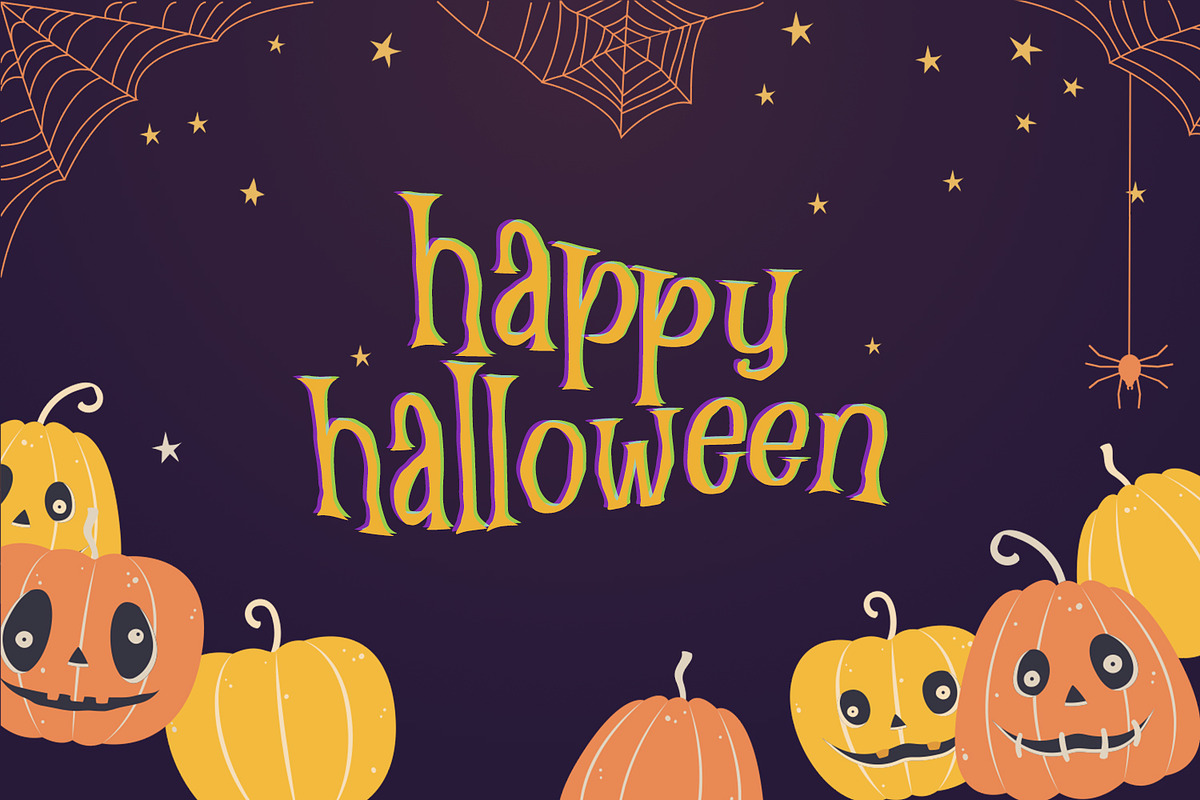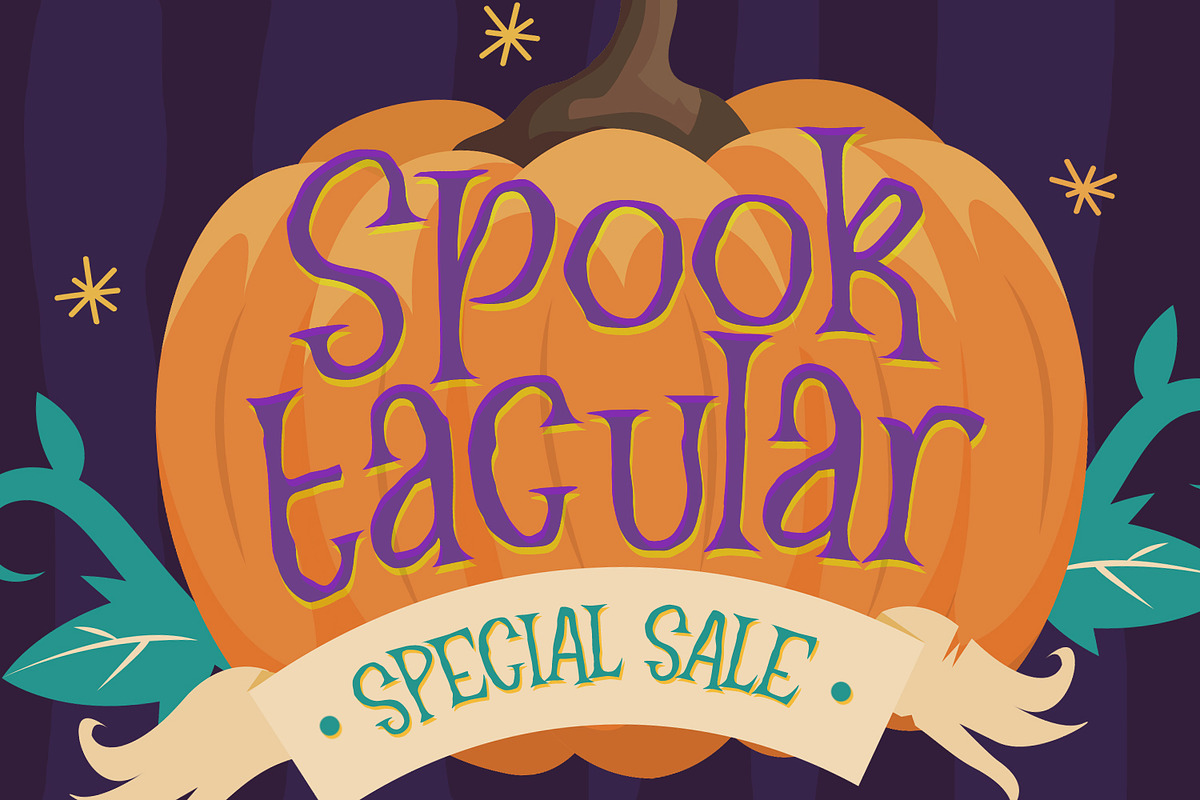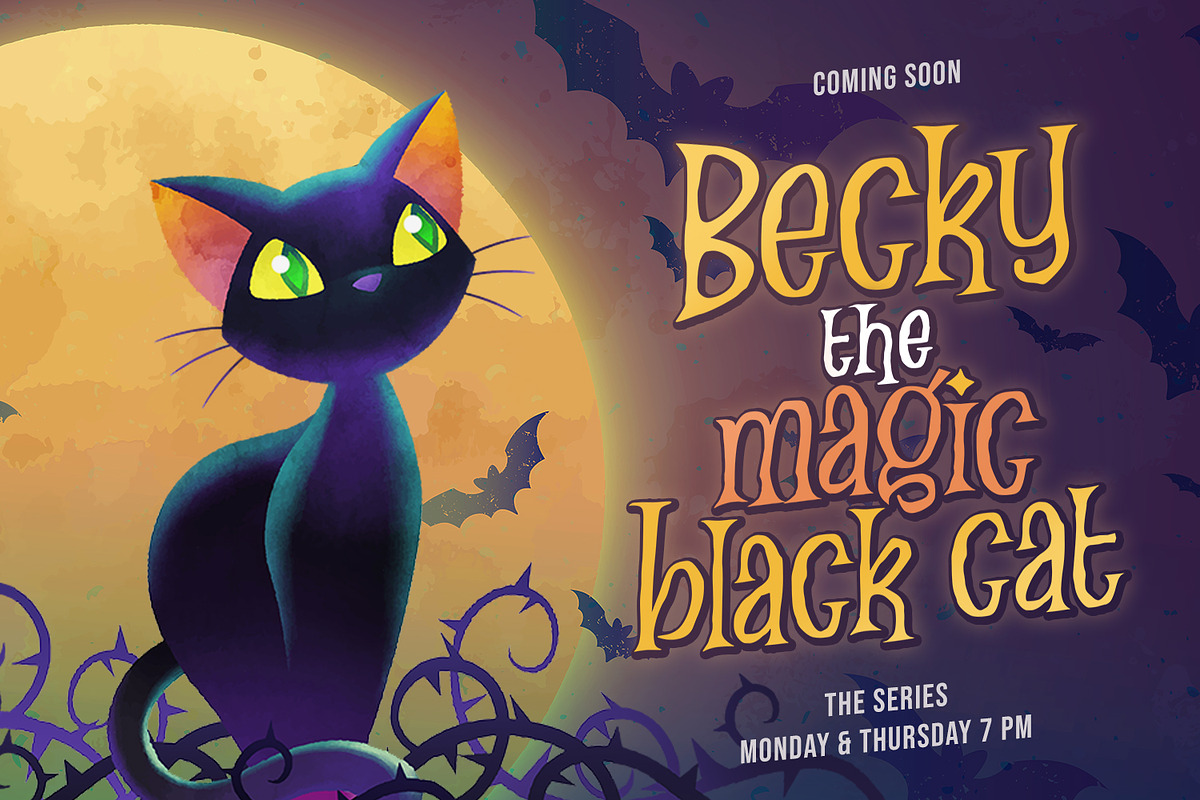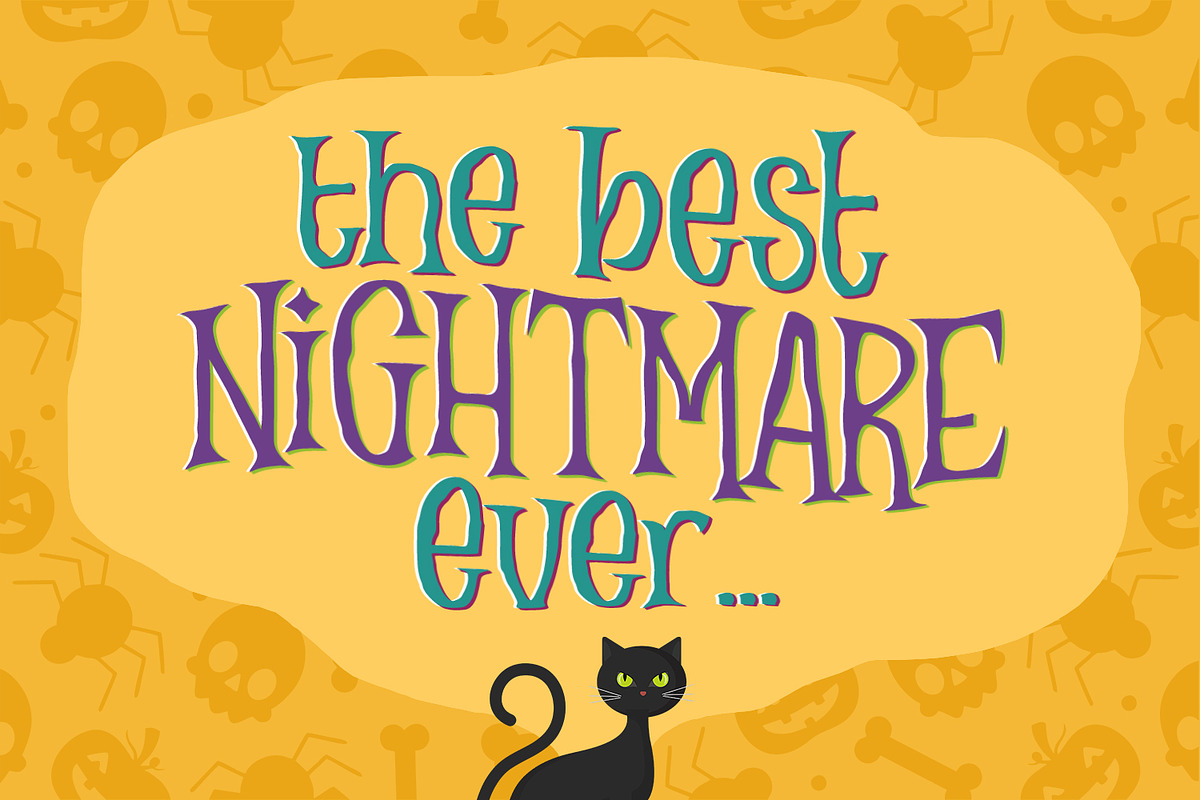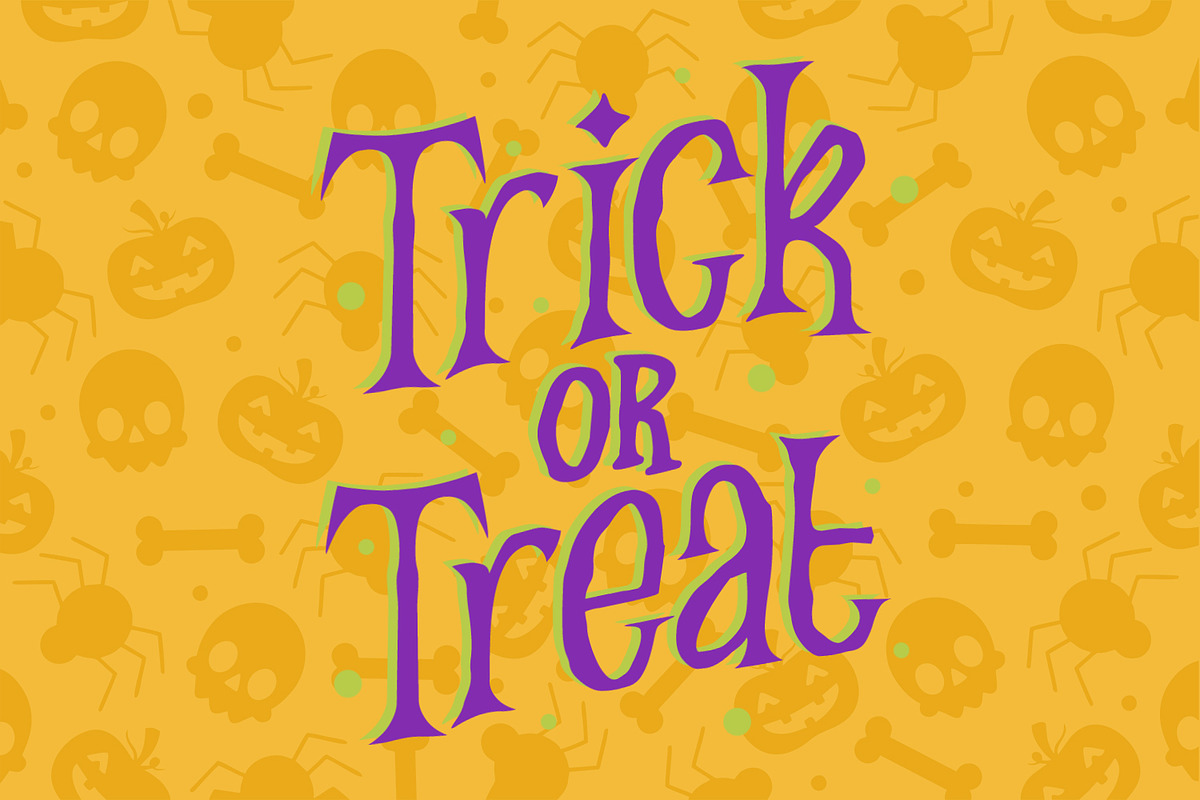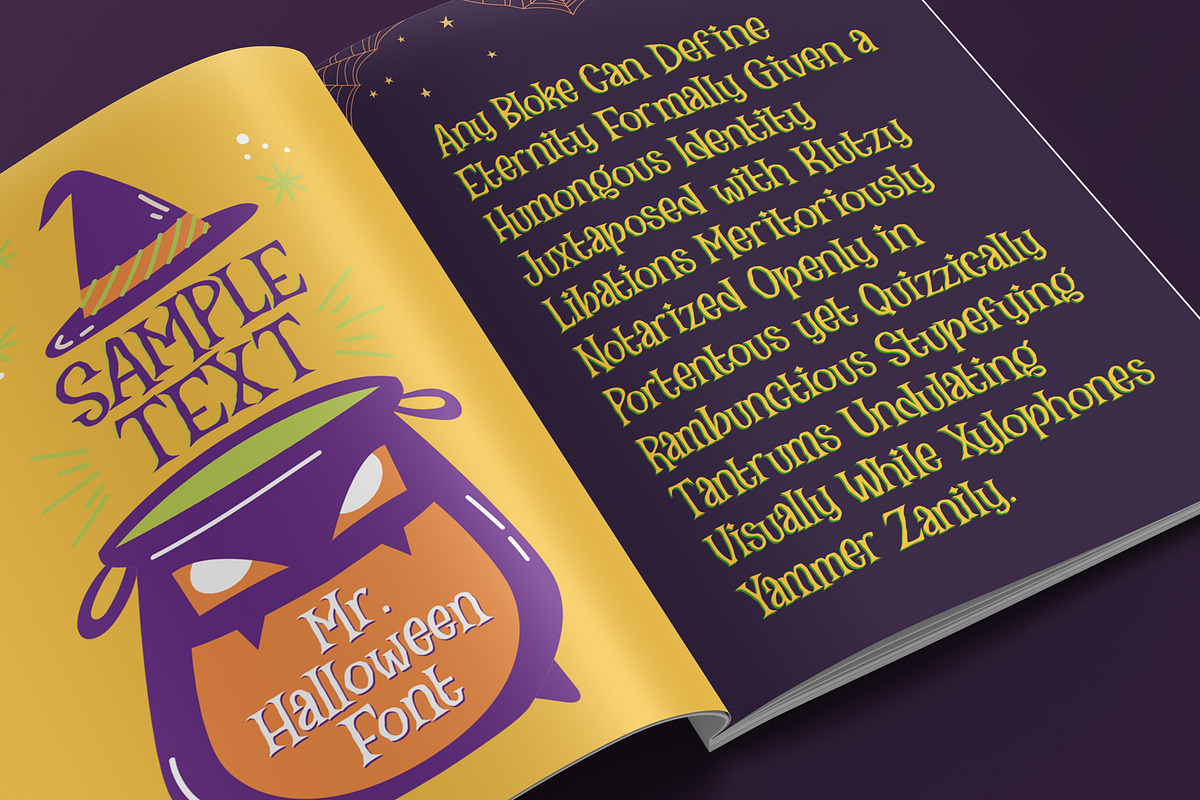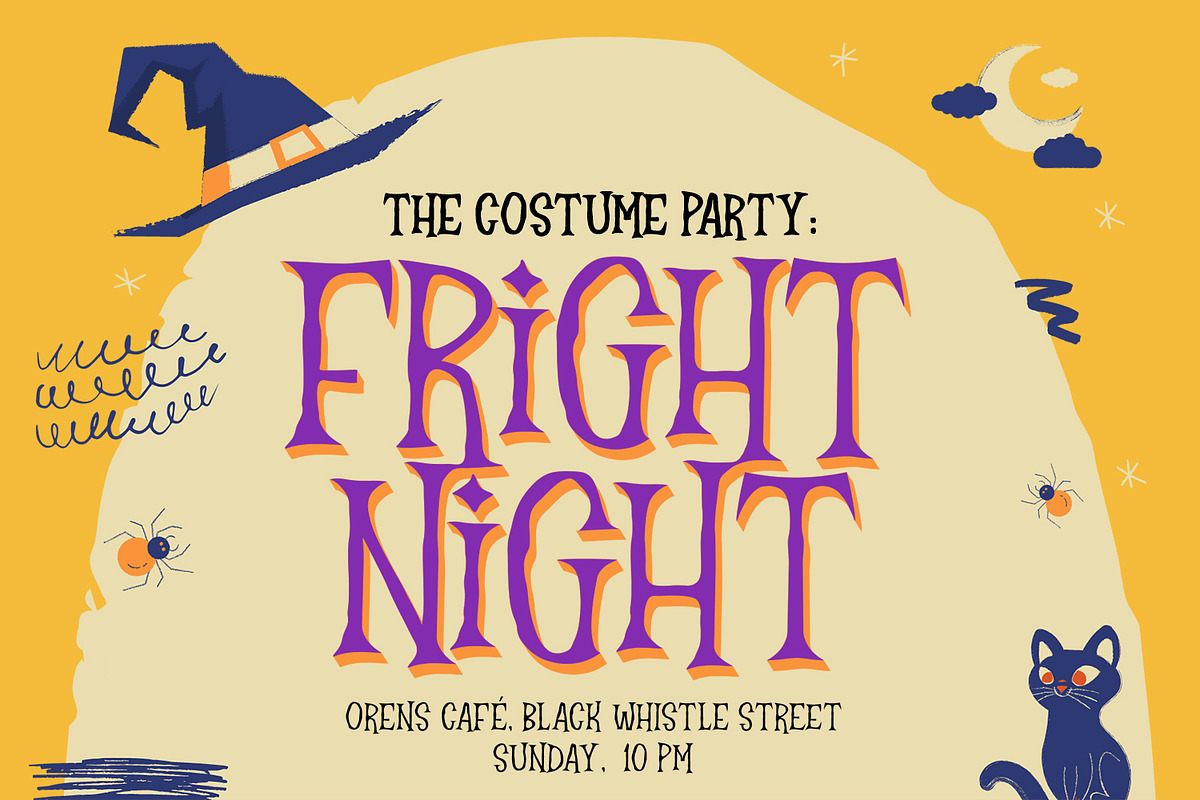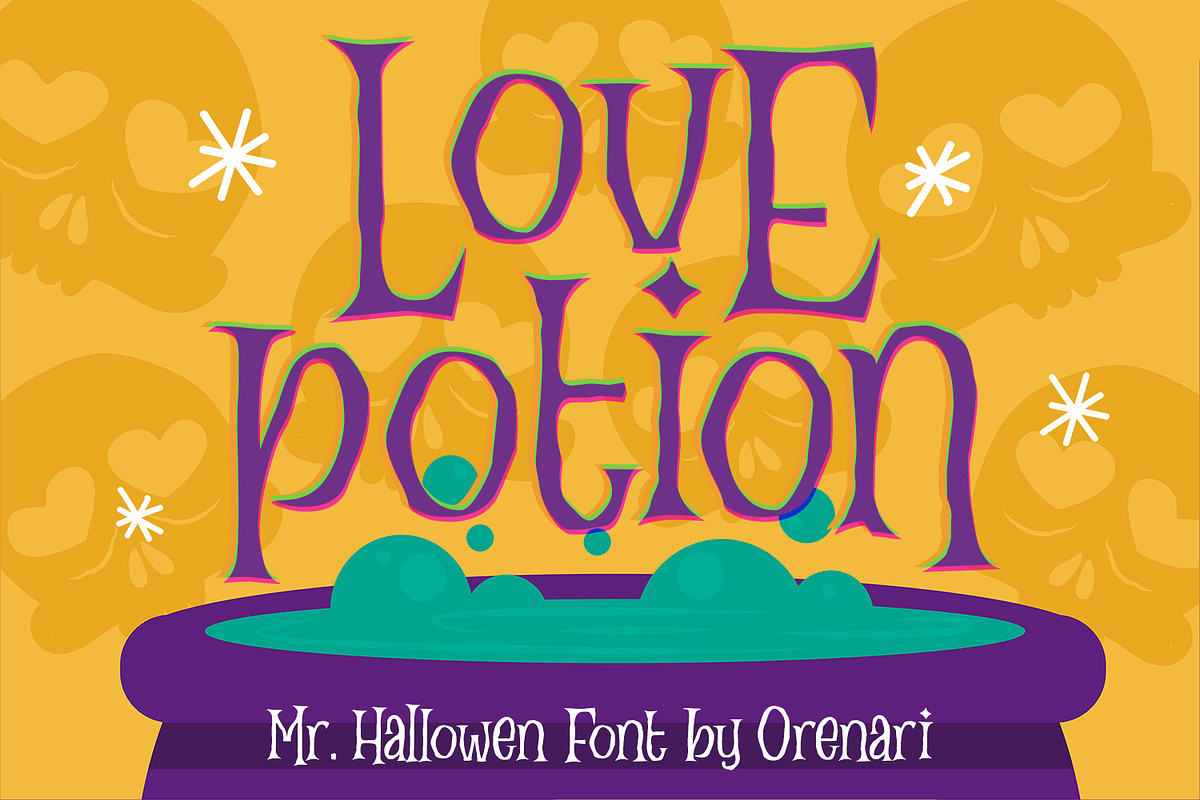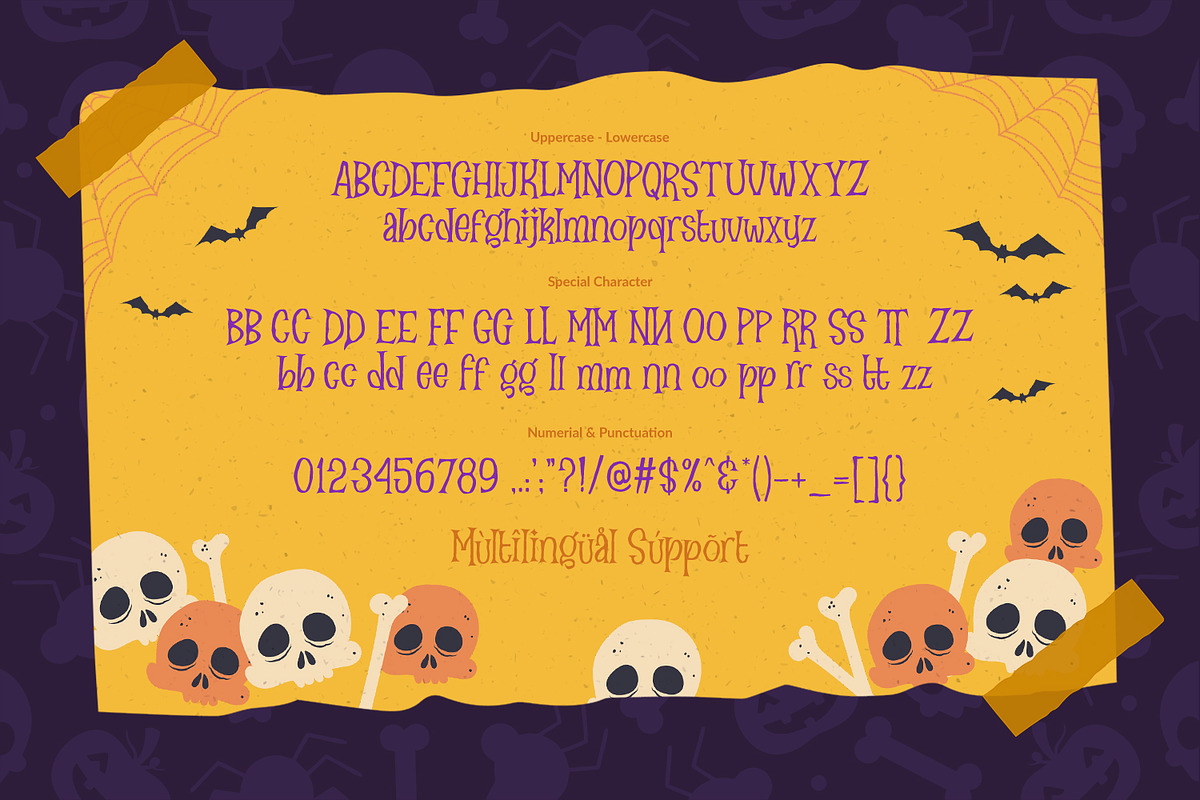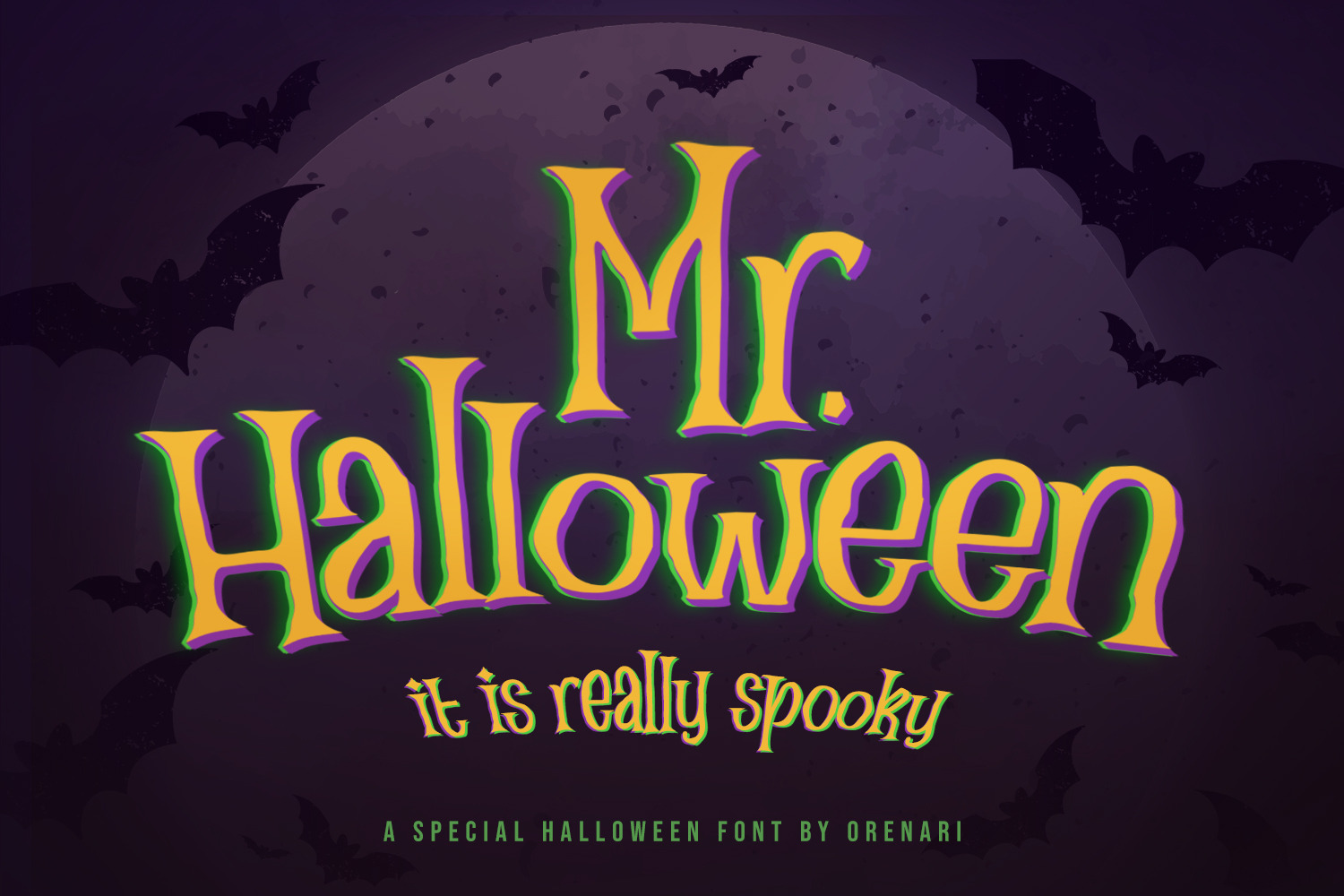
Mr. Halloween Font
Boo!
Welcome Halloween with Mr. Halloween font!
Mr. Hallowen font is specially designed for Halloween or another spooky yet horror occasion. This font has rough texture, so it will bring the creepy atmosphere in every glyphs. It's really horror when your project didn't meet the perfect font. So let Mr. Halloween be friends with your design and craft projects.